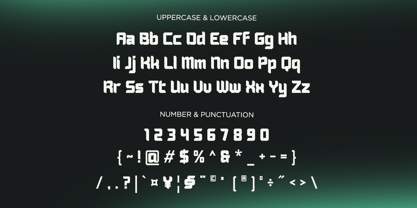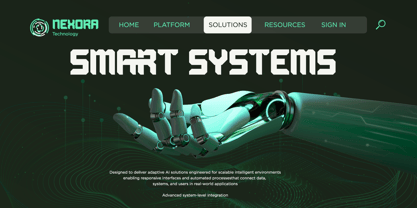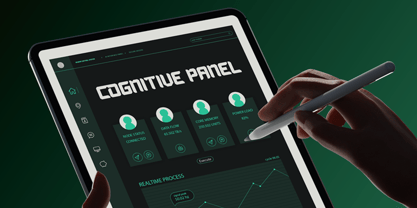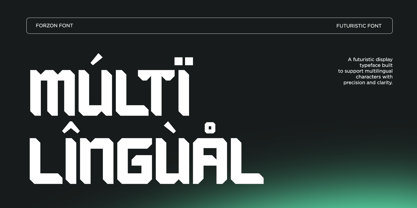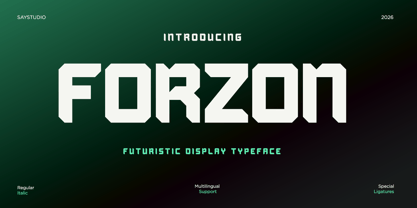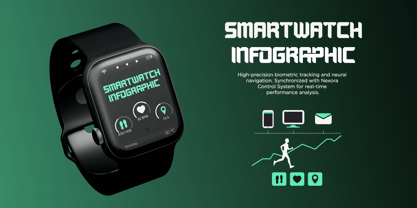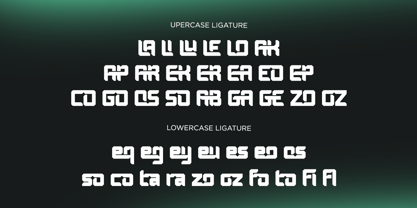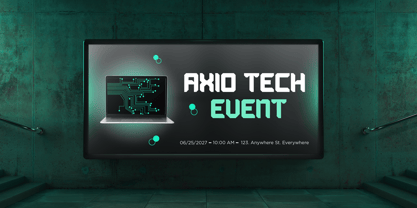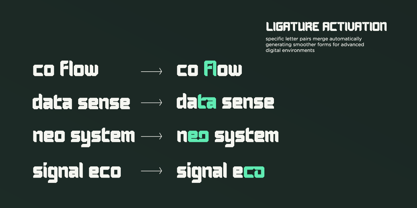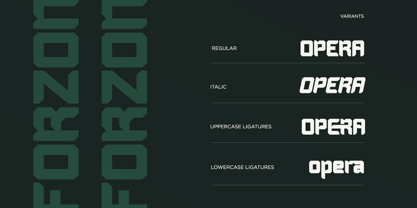
Forzon
Die Schriftfamilie Forzon wurde von Mussyayin entworfen und von Say Studio veröffentlicht. Forzon enthält 2 Stile und Familienpaketoptionen. Mehr über diese Familie
Forzon is a futuristic display typeface crafted to deliver bold energy, sharp geometry, and cutting-edge visual impact. With strong angular structures and precise proportions, Forzon creates a powerful sci-fi aesthetic that commands attention. Its distinctive shapes and modern construction make it an ideal choice for projects requiring a high-tech, forward-looking, and dynamic visual presence. Designed for designers, creative studios, branding teams, and digital creators, Forzon offers a versatile typographic solution for futuristic branding, tech visuals, and experimental design. From logo creation and gaming visuals to sci-fi posters, cyberpunk artworks, esports branding, tech product packaging, and motion graphics, this font strikes a remarkable balance between readability and futuristic character. Whether you're working on digital campaigns, UI concepts, game interfaces, NFT artwork, tech startup branding, event posters, album covers, or modern editorial layouts, Forzon enhances every project with bold personality, technological precision, and futuristic style. Its unique display form is perfect for projects aiming for a modern, innovative, and visually powerful appearance. Thank You, Have a Good Day! Saystudio